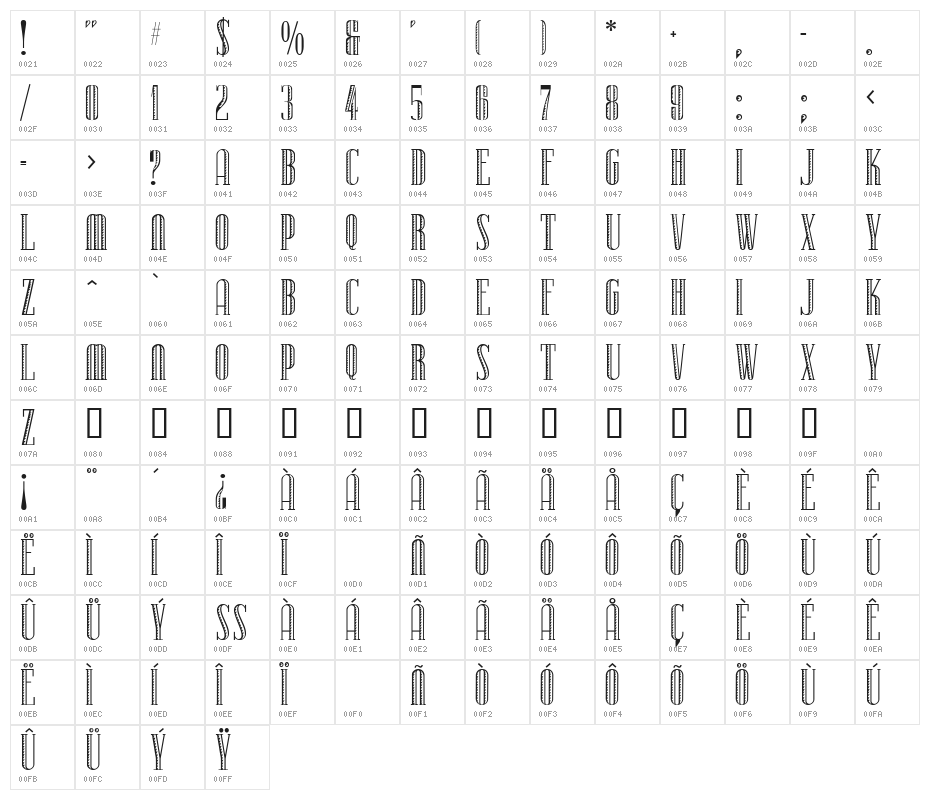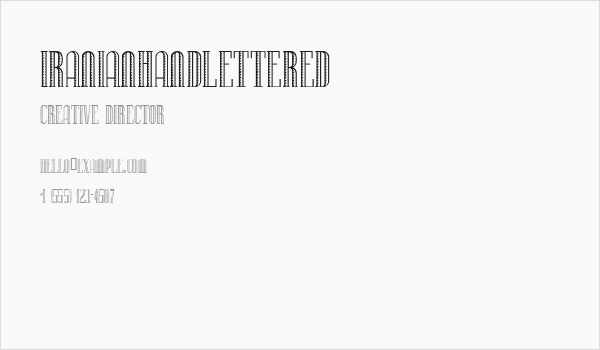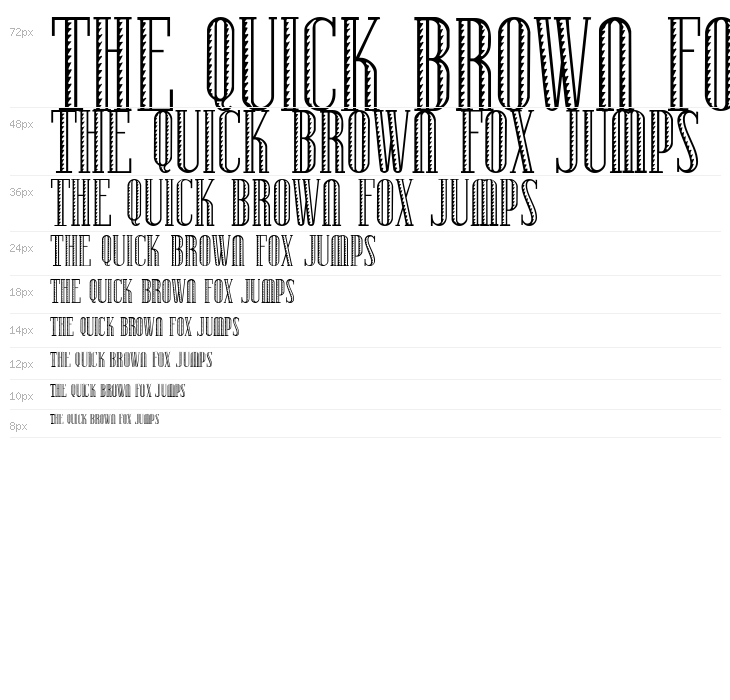
IranianHandLettered Font
IranianHandLettered Description
This font features a unique hand-lettered style with a distinct decorative flair. The characters are tall and narrow, with a vertical emphasis that gives them an elegant and sophisticated appearance. Each letter is adorned with a diagonal striped pattern, adding texture and visual interest. The uppercase and lowercase letters maintain a consistent style, while the numerals and special characters complement the overall design. The font's intricate details and artistic elements make it stand out, capturing attention with its bold and creative expression.
| Proposed Projects | Ideal for artistic projects, branding, posters, and invitations where a unique and eye-catching font is desired. |